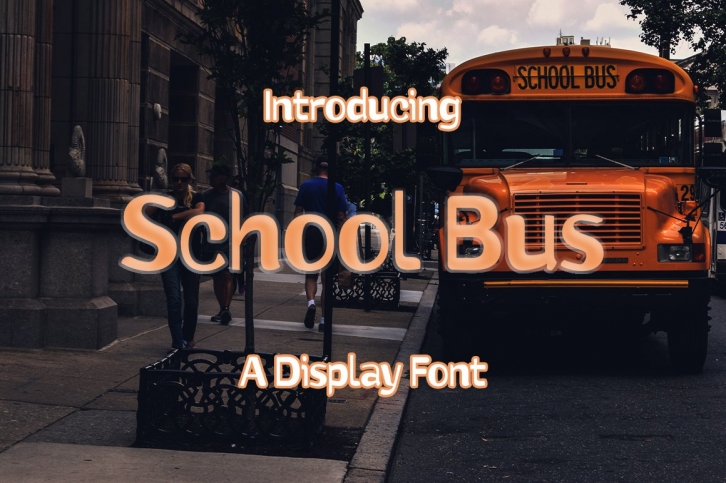
School Bus is a trendy and unique font with an authentic style. It was designed by iblfzn and it's a great choice for creative people who need such a font. It was released on January 26, 2021 and the file size is 8.18 MB. School Bus will add an organic vibe to any design idea!